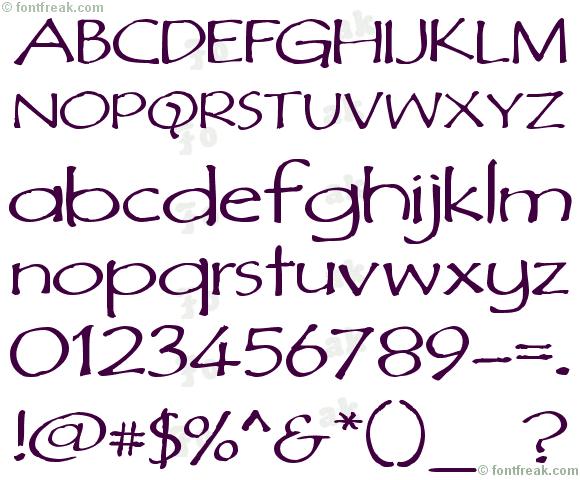
DiMurphic
The DiMurphic font by Gemfonts is a unique and eye-catching display typeface that brings a creative flair to any design project. This freeware font, created by C. Graham Meade in 2000, features a whimsical style that stands out with its distinctive letterforms. The font showcases a medium stroke weight with a playful contrast, giving it a lively appearance while maintaining legibility. The irregular spacing between characters enhances its artistic quality, making it suitable for various applications.
DiMurphic is ideal for a range of creative projects, particularly those that benefit from its charming aesthetic. It works wonderfully for wedding invitations, where the playful elements can convey joy and celebration. Additionally, the font is a great choice for movie posters, especially for films targeting a younger audience or those with a lighthearted theme. Restaurant menus can also benefit from the font's inviting character, adding a touch of personality to the dining experience. Content creators will find DiMurphic perfect for social media graphics, as its unique look can help capture attention and engage viewers.
The target audience for this font includes graphic designers looking to add a distinct touch to their work, small business owners who want to create memorable branding, and content creators seeking to elevate their designs. With its friendly and artistic vibe, DiMurphic caters to those who appreciate creativity and individuality in typography.